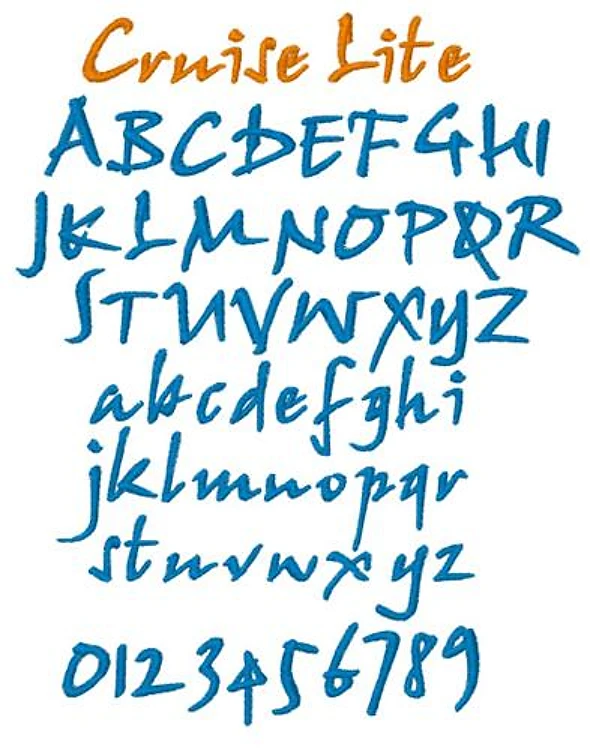
Internet Stitch is happy to present Cruise Lite Embroidery Font - Playful Script Lettering - ELP machine embroidery font which has Playful script machine embroidery font with fluid, handwritten-style letters, perfect for adding charm to personal items like jackets and bags. Available in ELP formats. included. If you would like to view more embroidery fonts and alphabets please search our embroidery fonts page.
Cruise Lite Embroidery Font - Playful Script Lettering - ELP